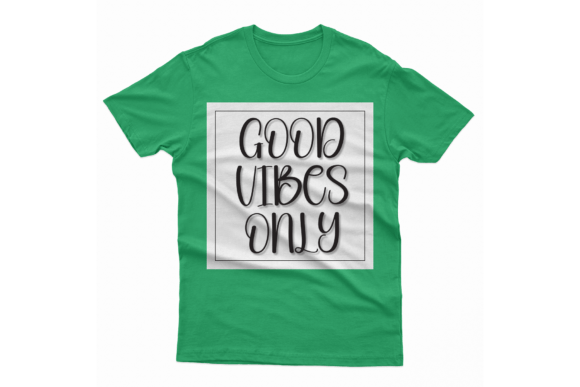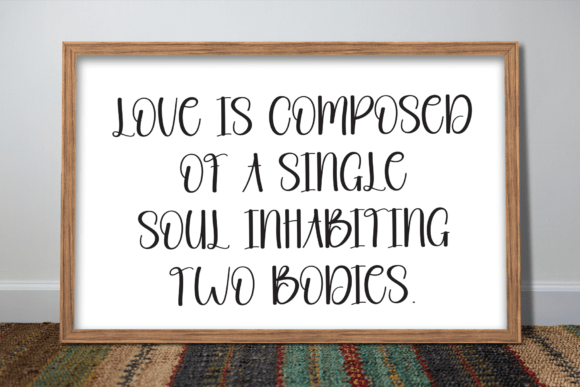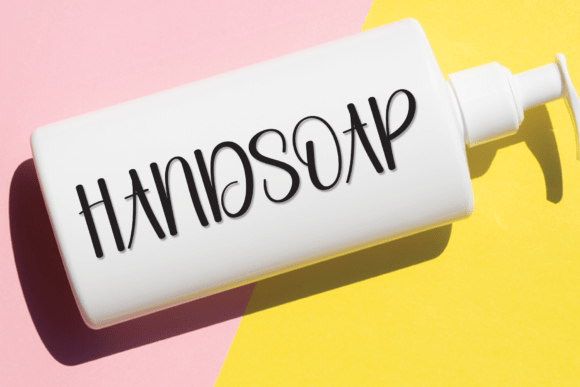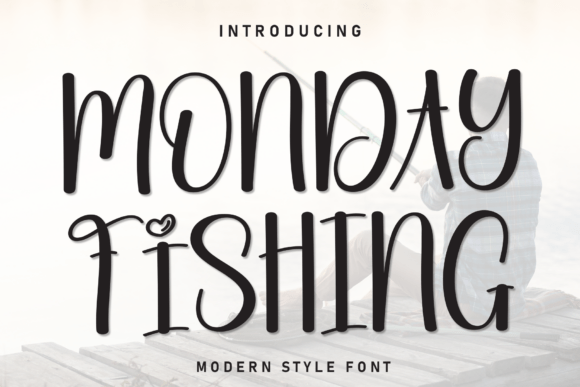
Introduction to Monday Fishing Font
Experience the charm of the delightful handwritten display font that embodies sweetness and friendliness in every stroke.
Overflowing with a joyous, fun vibe, this font is a perfect match for crafting exquisite wedding invitations, personalized cards or any design project that could benefit from a spritz of playful creativity .